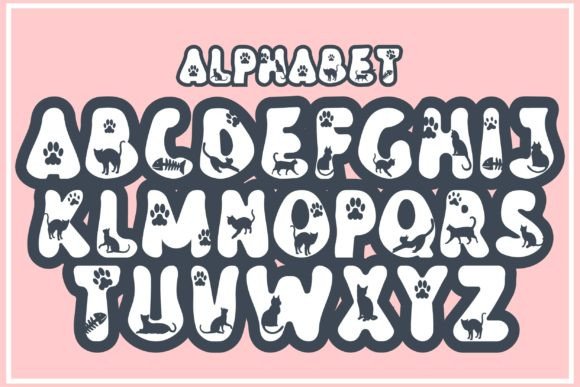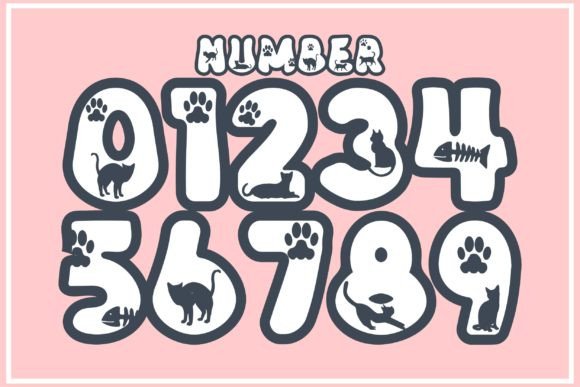
Groovy Cat Font: The Purrfect Addition to Your Design Collection
Are you on the hunt for a font that’s as cool as it is friendly? Look no further than the Groovy Cat Font! This decorative font is the perfect addition to any design project that requires a touch of whimsy and playfulness. In this article, we’ll dive into the world of Groovy Cat Font and explore its features, uses, and benefits for designers and crafters.
What is Groovy Cat Font?
Groovy Cat Font is a decorative font that’s designed to bring a smile to your face. With its fun and playful design, this font is perfect for cartoon-related designs, children’s games, and any creation that requires a lovely touch. The font features bold lines, rounded edges, and a charming personality that’s sure to capture the hearts of your audience.
Key Features of Groovy Cat Font
- Unique Design: Groovy Cat Font boasts a one-of-a-kind design that’s sure to make your designs stand out from the crowd.
- Playful Personality: This font exudes a playful and friendly personality that’s perfect for designs that require a touch of whimsy.
- High-Quality: Groovy Cat Font is a high-quality font that’s designed to deliver crisp and clear results, even at large sizes.
Uses for Groovy Cat Font
Groovy Cat Font is a versatile font that can be used in a variety of design projects, including:
- Cartoon-Related Designs: This font is perfect for designing cartoon characters, comics, and animations.
- Children’s Games: Groovy Cat Font is a great choice for designing children’s games, puzzles, and activity sheets.
- Crafting Projects: This font is ideal for crafting projects, such as making cards, gift tags, and other paper crafts.
- Digital Designs: Groovy Cat Font can be used in digital designs, such as social media graphics, blog posts, and website headers.
Benefits of Using Groovy Cat Font
So, why should you choose Groovy Cat Font for your design projects? Here are just a few benefits:
- Adds a Touch of Whimsy: This font adds a touch of whimsy and playfulness to your designs, making them more engaging and fun.
- Easy to Read: Groovy Cat Font is easy to read, even at small sizes, making it perfect for designs that require a lot of text.
- Versatile: This font can be used in a variety of design projects, from digital designs to crafting projects.
- High-Quality: Groovy Cat Font is a high-quality font that’s designed to deliver crisp and clear results.
Tips for Using Groovy Cat Font
Here are a few tips for using Groovy Cat Font in your design projects:
- Use it with Bright Colors: This font looks great with bright, bold colors, so don’t be afraid to get creative with your color palette.
- Experiment with Different Sizes: Groovy Cat Font can be used at a variety of sizes, from small to large, so experiment with different sizes to find the one that works best for your design.
- Pair it with Other Fonts: This font can be paired with other fonts to create a unique and interesting design.
In conclusion, Groovy Cat Font is a cool and friendly decorative font that’s perfect for designers and crafters who want to add a touch of whimsy and playfulness to their designs. With its unique design, playful personality, and high-quality construction, this font is sure to become a favorite in your design collection. So why wait? Download Groovy Cat Font today and start creating fun and engaging designs that will capture the hearts of your audience!